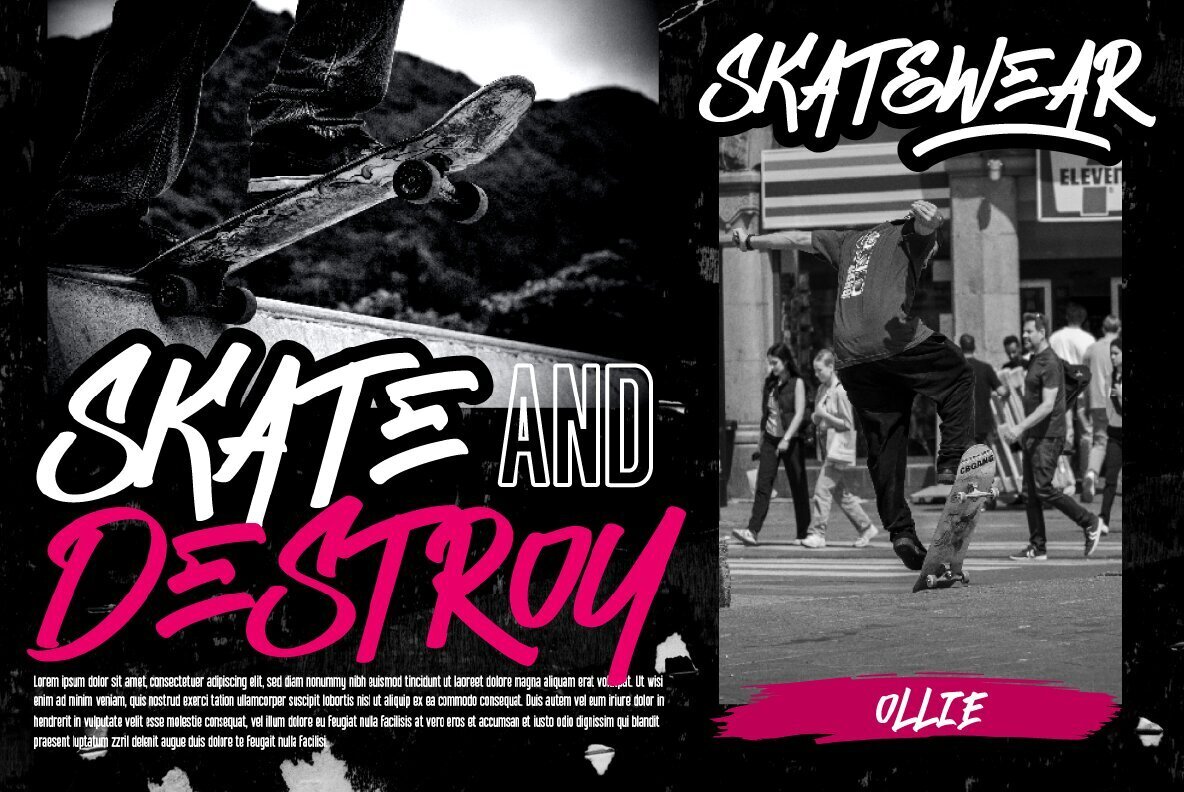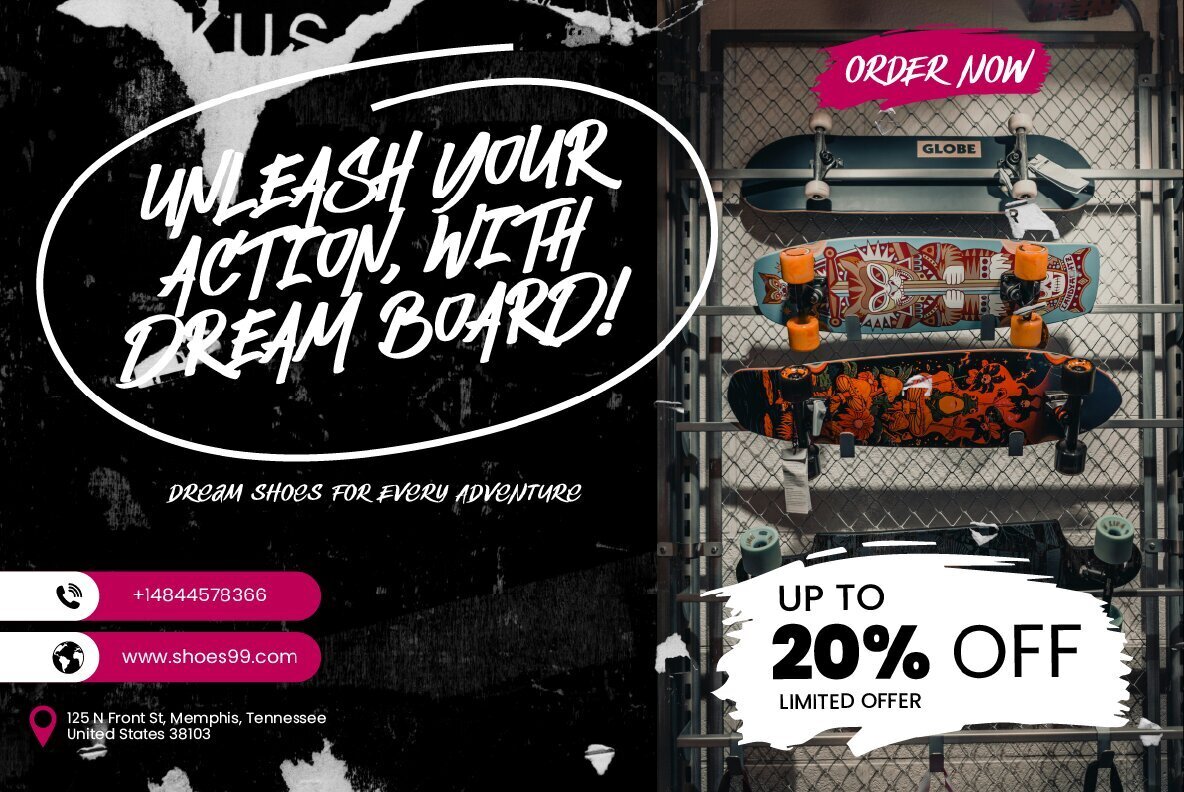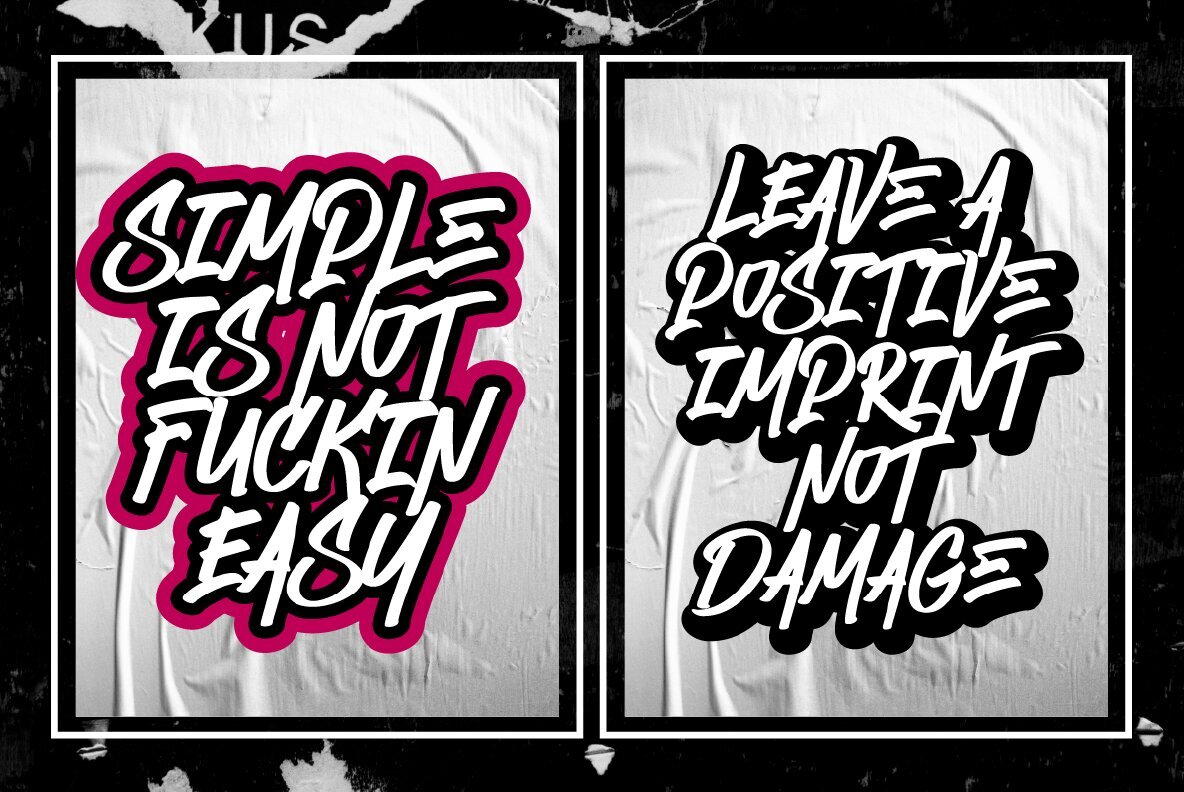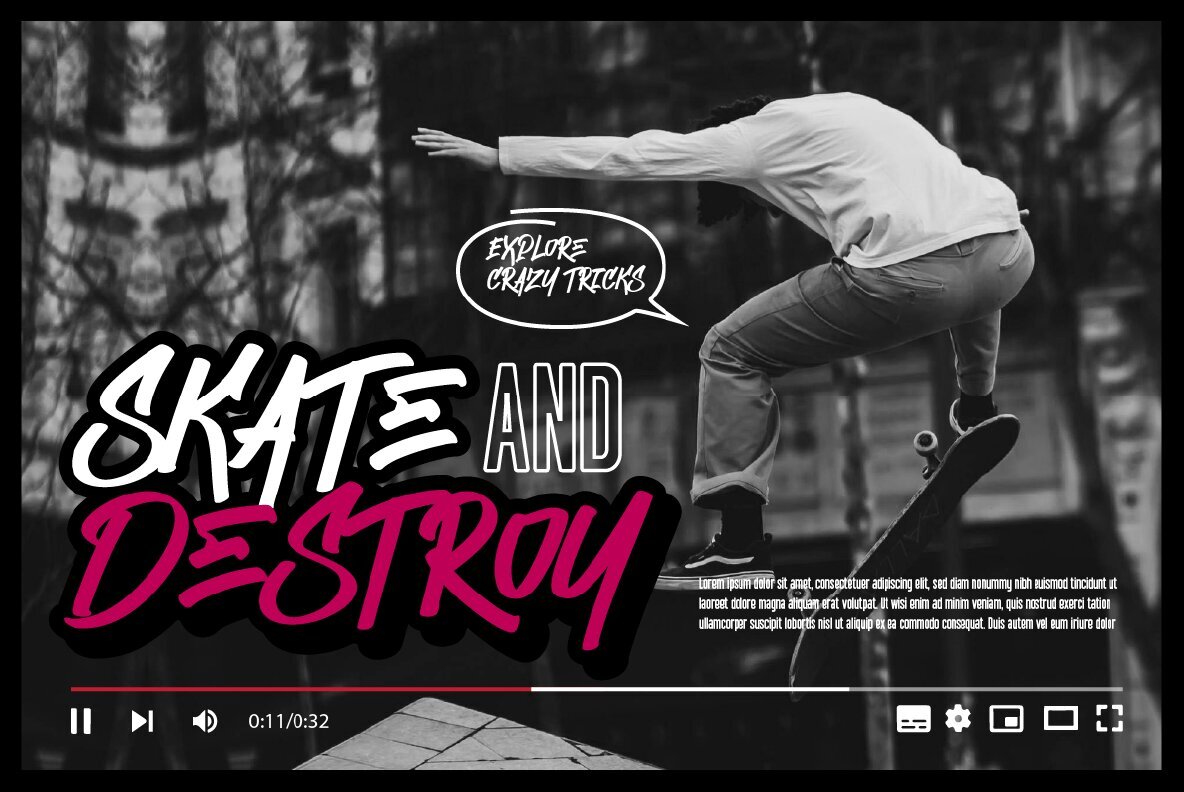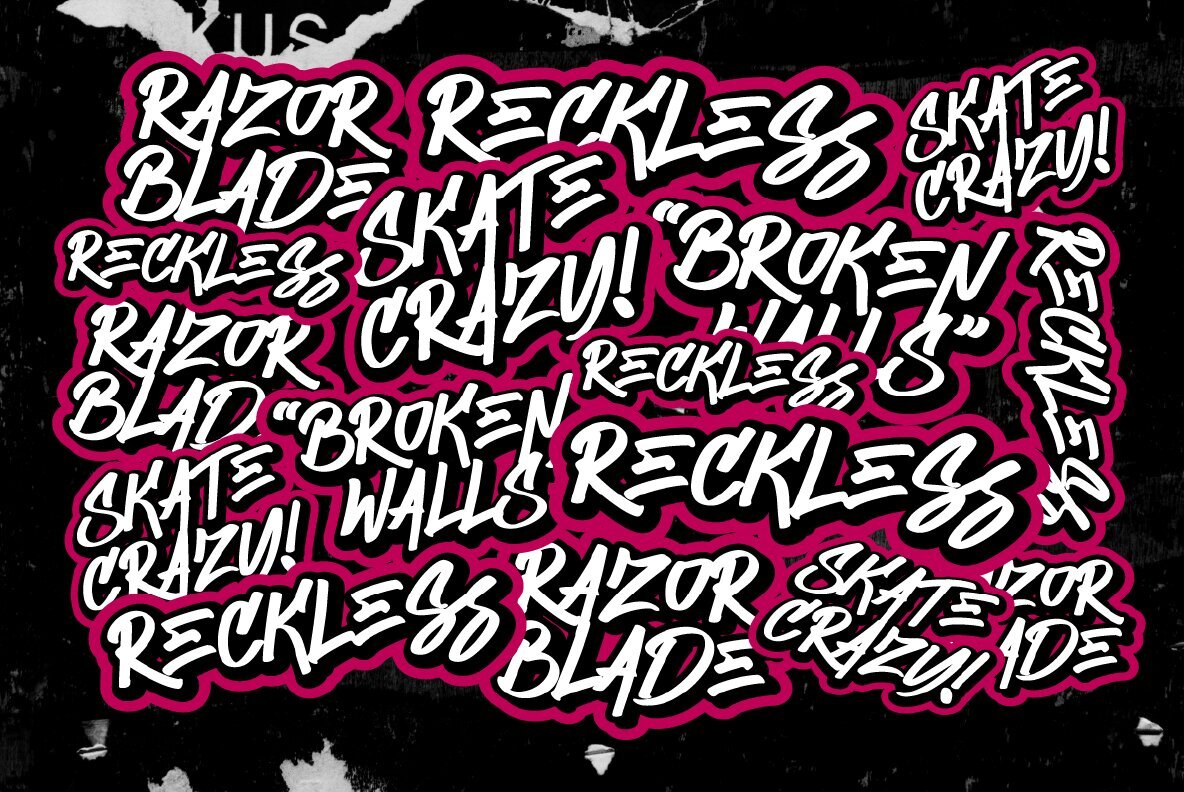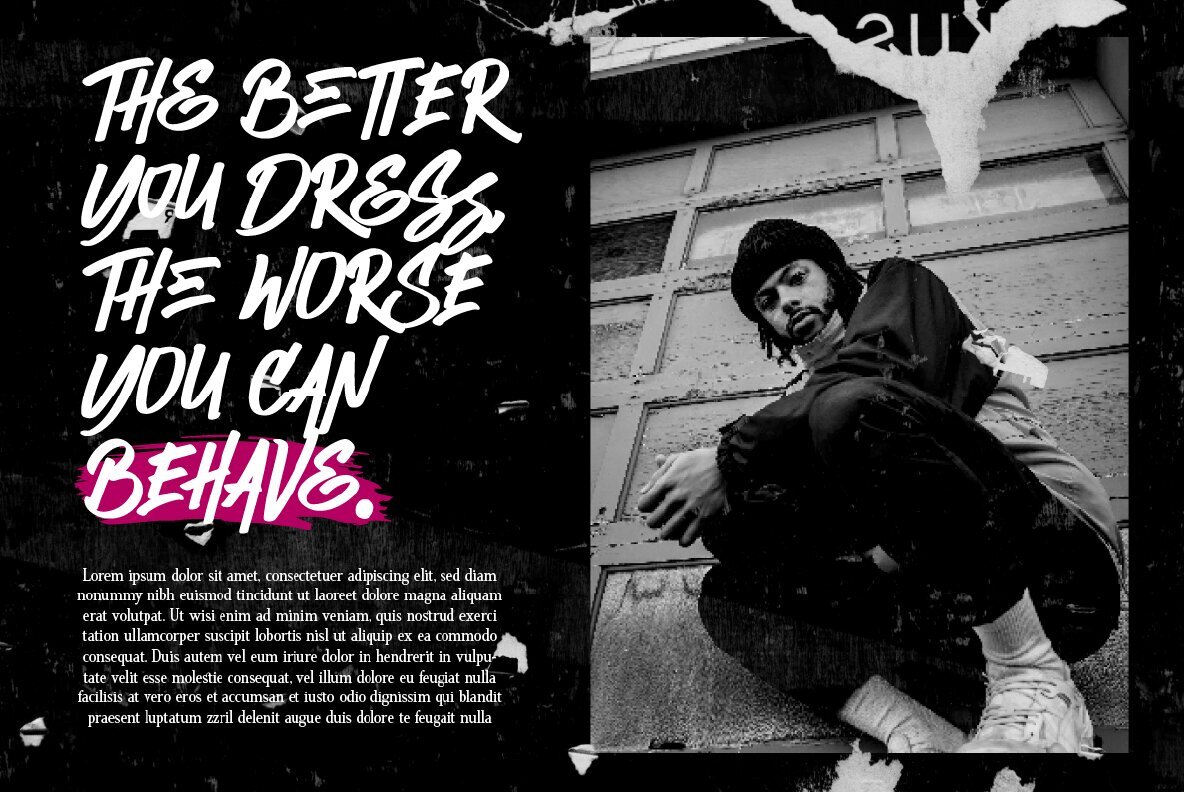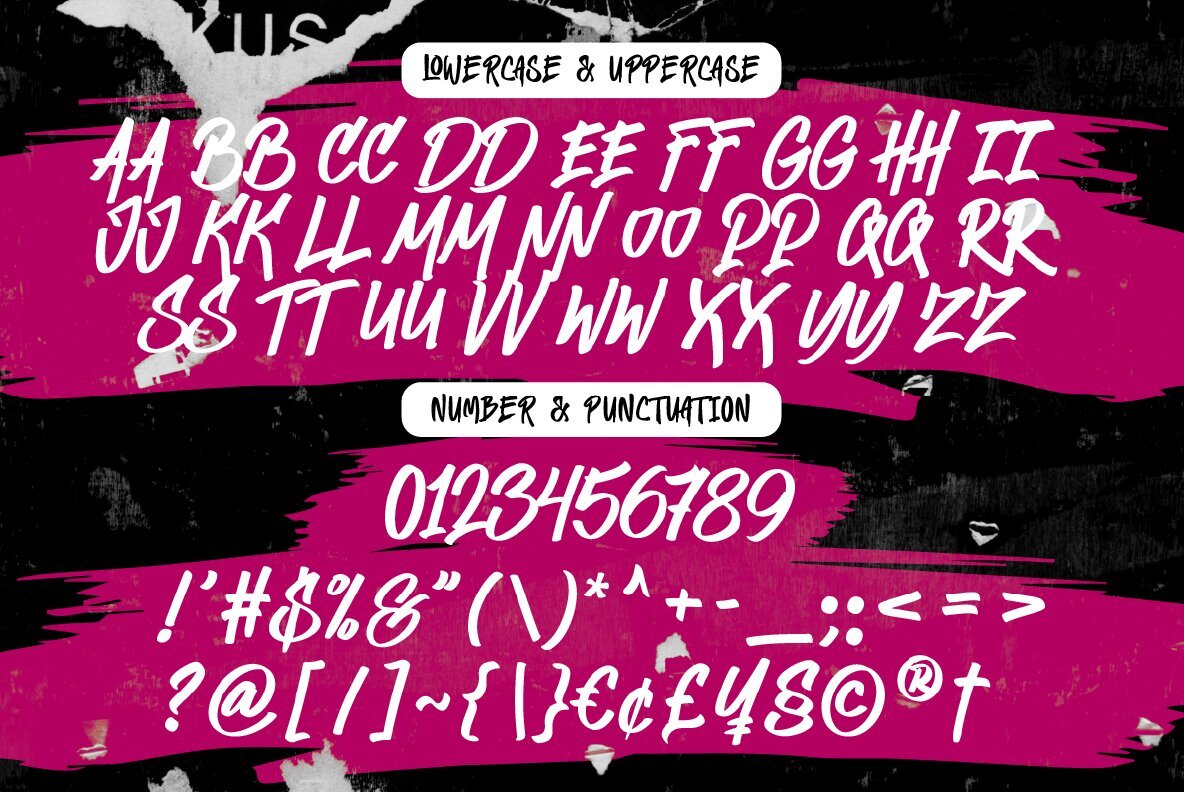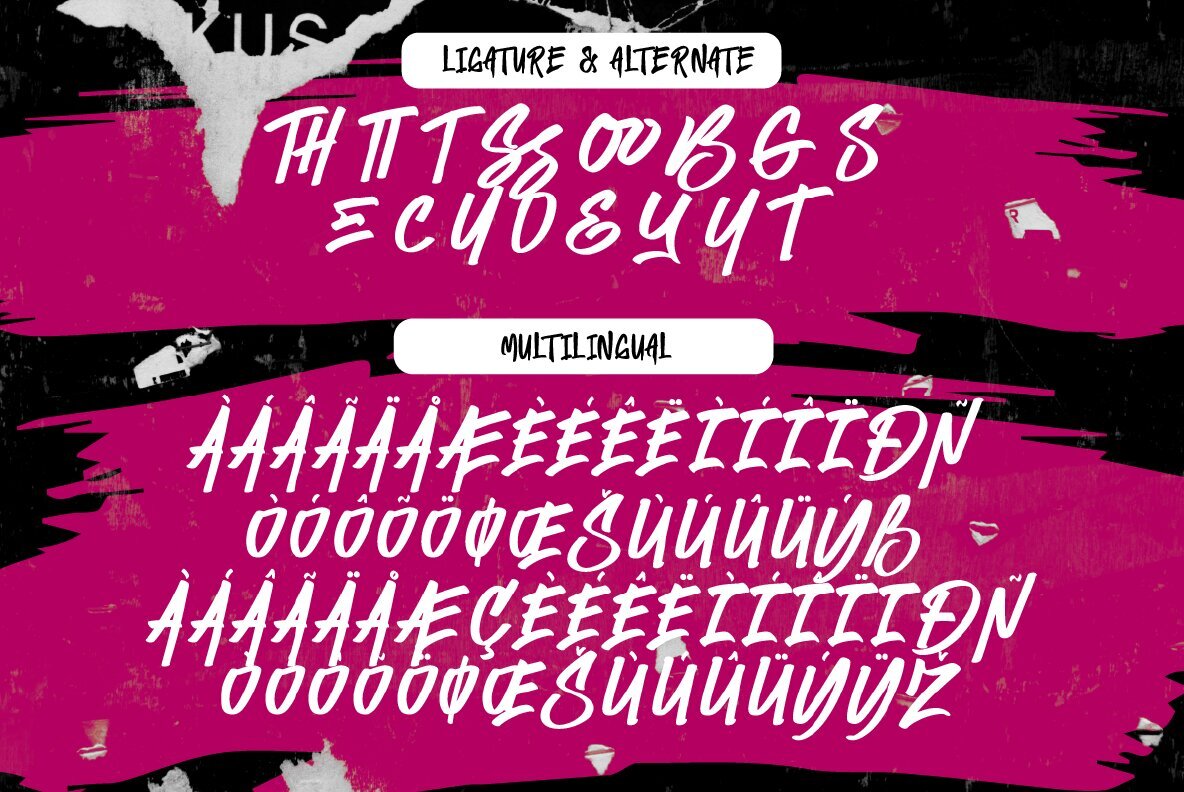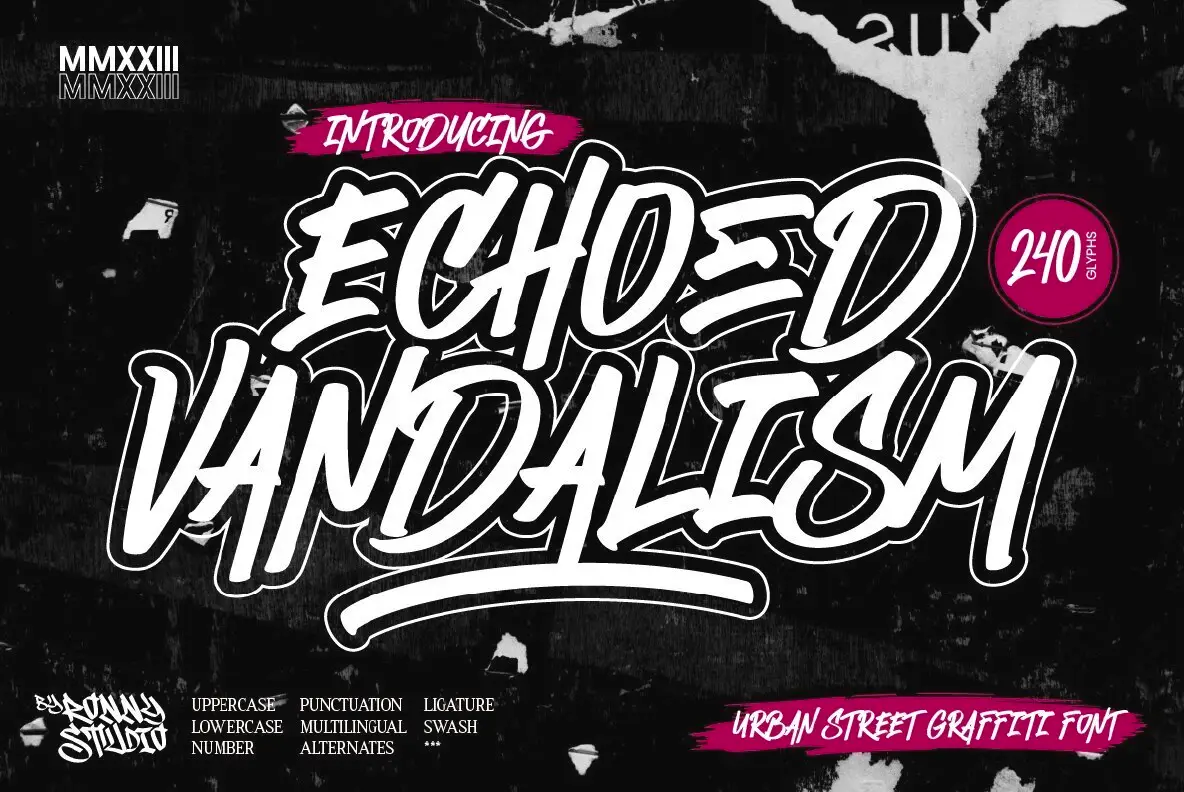
Echoed Vandalism Font
Echoed Vandalism is an urban street graffiti font that embodies the bold, dynamic, and energetic essence of street art. Designed with 240 glyphs, this font includes all the essential elements: uppercase and lowercase letters, numbers, ligatures, punctuation, alternates, swashes, and multilingual support. Its versatility makes it ideal for a wide range of design projects such as branding, posters, album covers, and digital content.
The font delivers an authentic and daring aesthetic, capturing the spirit of modern art and creative freedom. Key features of Echoed Vandalism include a full set of uppercase and lowercase characters, comprehensive punctuation and numbers, and a variety of alternates and ligatures. The inclusion of swashes and PUA encoding enhances its adaptability, ensuring that your designs stand out with a unique and expressive style.